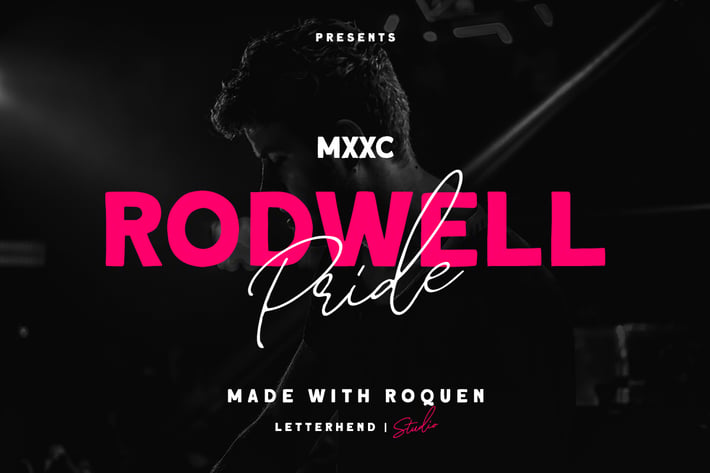
Roquen - Bold Sans Typeface
letterhend
Introducing, Roquen Sans. A bold sans typeface. This item is really perfect for you who needs a typeface for especially logotype, apparel, invitation, branding, packaging, advertising etc. This typeface has features :
Uppercase, lowercase, punctuations
Symbols & numerals